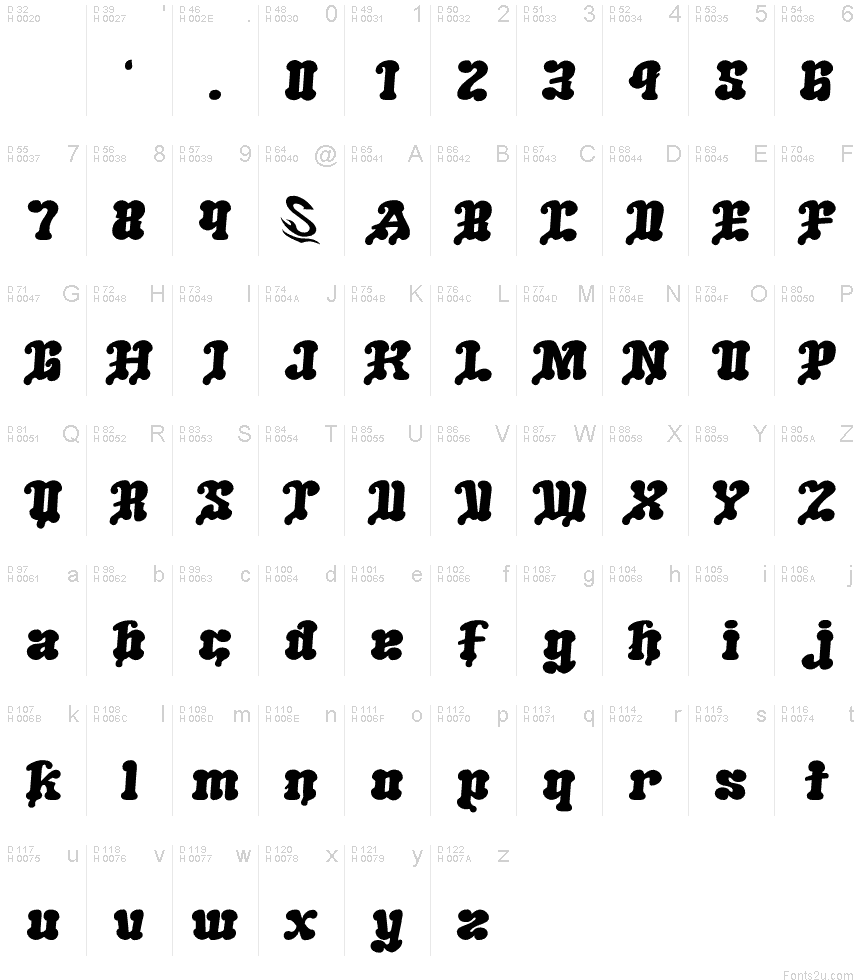
Melting Ice Cream__G
Melting Ice Cream by Goma Shin is a free cartoon display font with oversized, rounded letters and a gooey, soft-serve silhouette. Bulbous ends make the lettering cheerfully unruly.
Ice cream shops and dessert brands can use its dripping shapes for playful packaging, menus, and storefront graphics. The same exaggerated forms suit children's event posters, especially when the theme involves sweets or summer treats. On merchandise and party invitations, the letters can become part of the confectionery artwork.